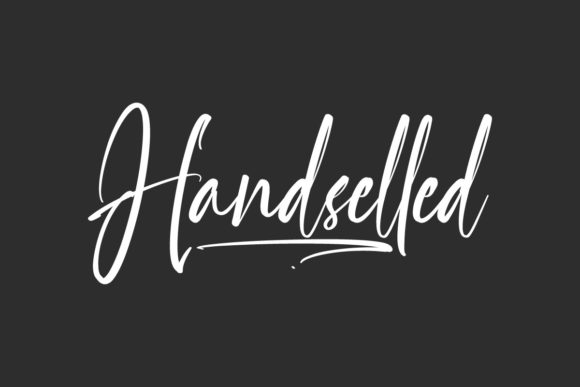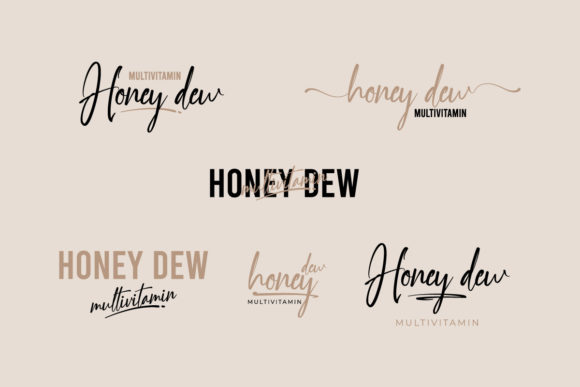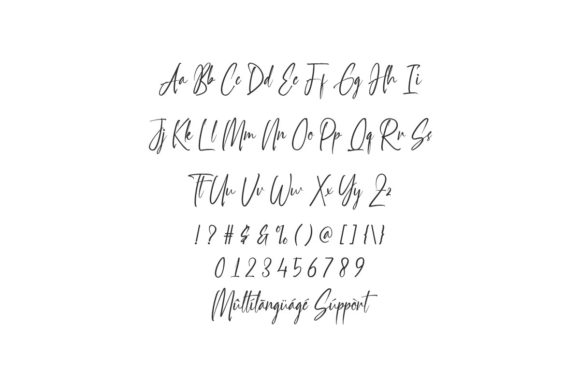
About Handselled Font
Handselled is a brushed script font, combining modern and classic vibes.
It has a classy, elegant and modern look that can be used for logos, branding, invitations, stationery, wedding designs, social media posts, and much more!